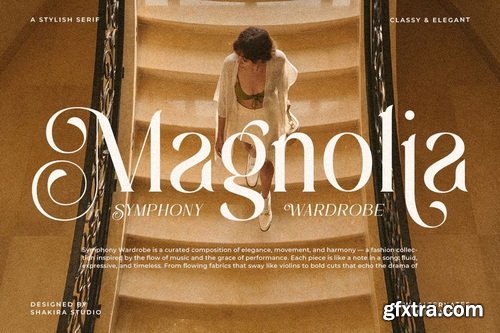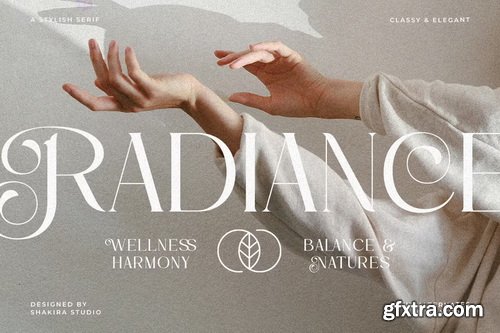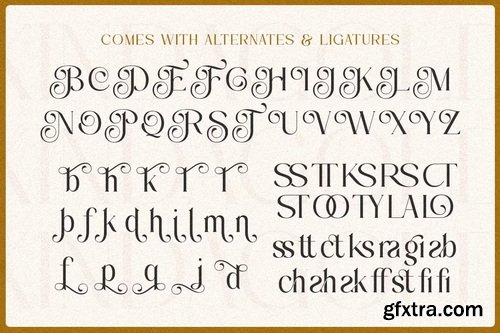
CreativeMarket - Kinda Gold - Modern Elegant Serif
Kinda Gold is a sophisticated serif typeface that radiates contemporary elegance with a touch of luxury. Featuring both Regular and Italic versions with exquisite alternates and ligatures, this font is meticulously crafted for premium branding, high-end logos, luxurious packaging, and editorial designs that demand refinement and prestige. With its graceful serifs and fluid italic variant, Kinda Gold delivers exceptional versatility for brands seeking both sophistication and impact. The carefully designed alternates and ligatures enable flawless typographic harmony, perfect for creating distinctive visual identities with a golden touch.
Premium Features Include: Elevate Your Brand with Kinda Gold's Luxurious Appeal Ideal for: